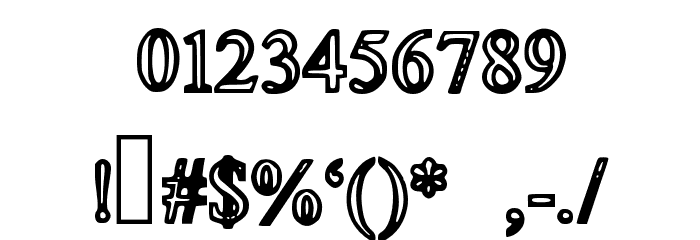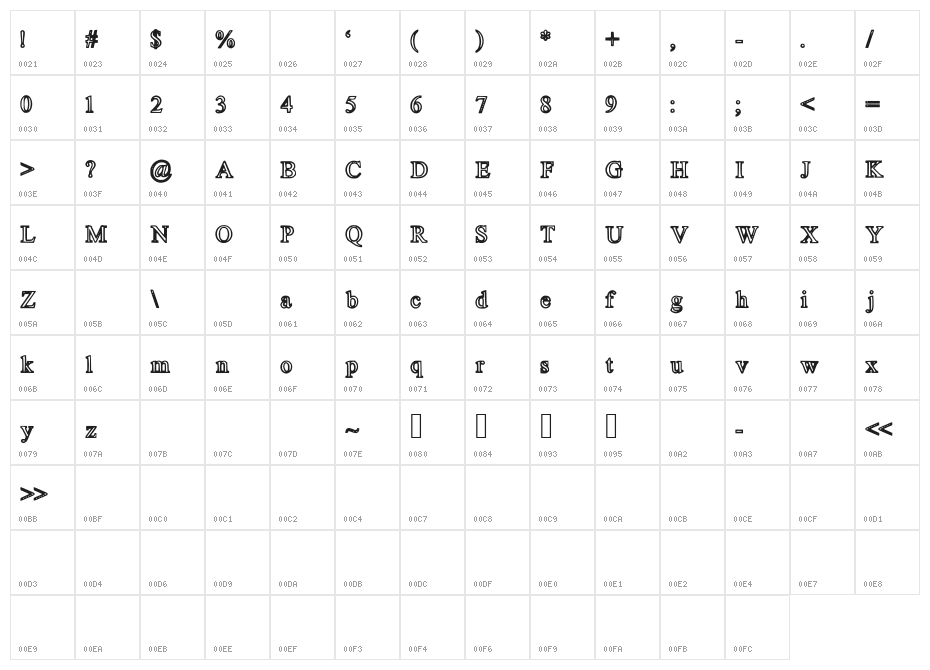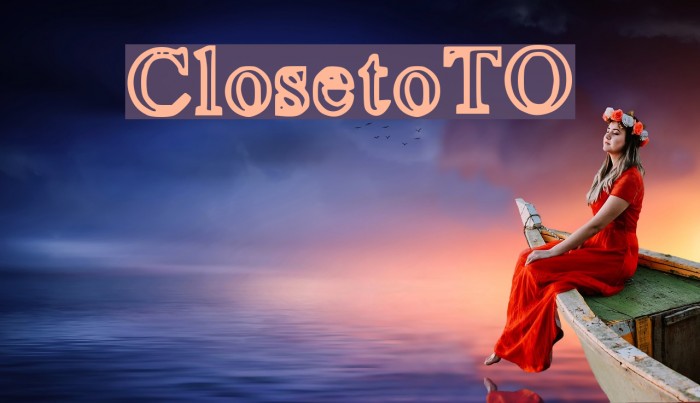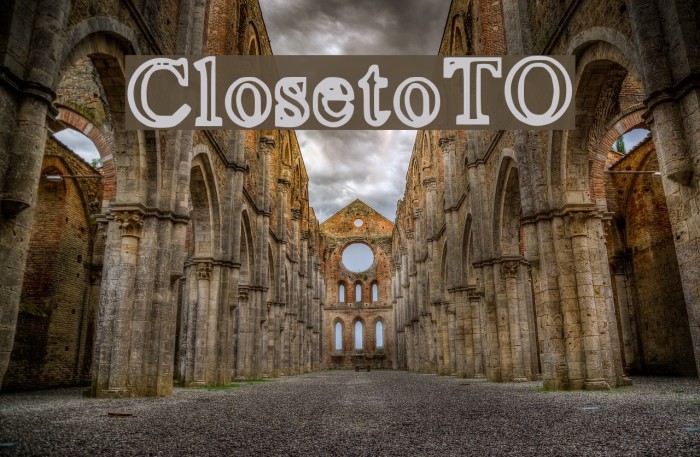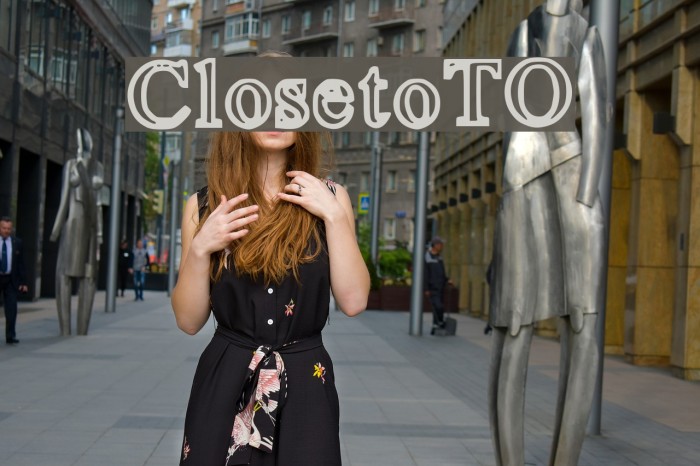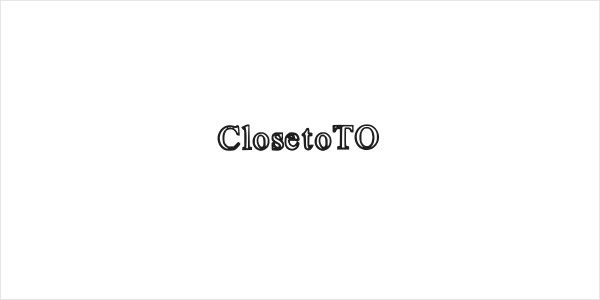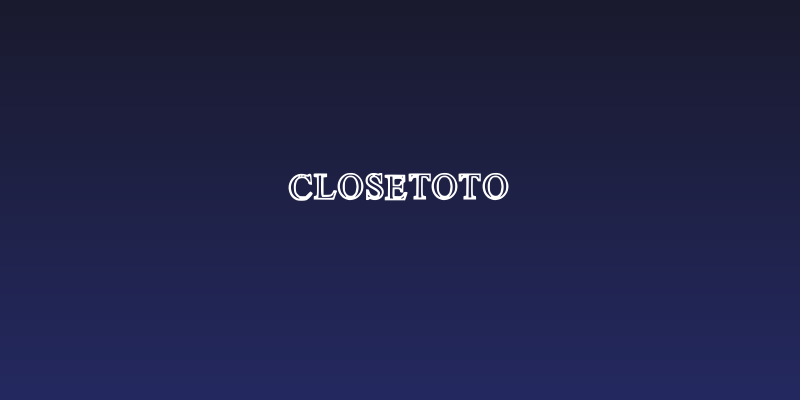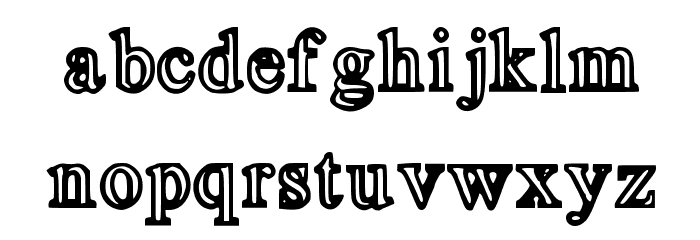
ClosetoTO Font
ClosetoTO Description
This font features a bold and striking design with a strong presence. The characters are outlined with a thick black border, giving them a three-dimensional effect. The serifs are prominent, adding a classic touch to the overall modern style. The uppercase and lowercase letters maintain a consistent weight, while the numbers and special characters are equally bold and impactful. The font's unique style makes it stand out, suitable for attention-grabbing headlines and creative designs.
| Proposed Projects | Ideal for posters, logos, branding, and any design requiring a bold statement. |